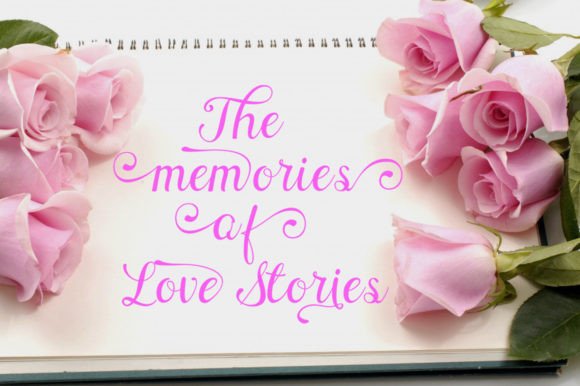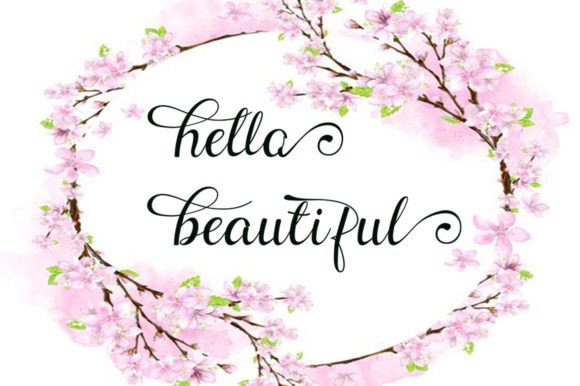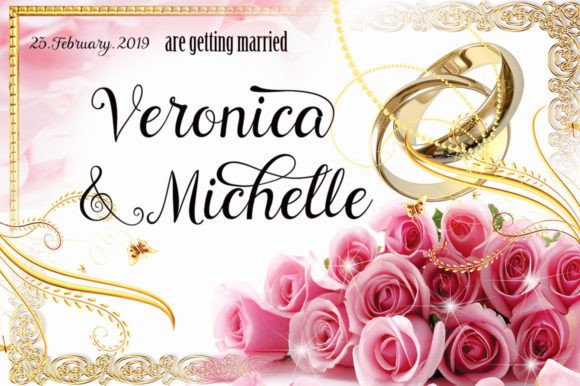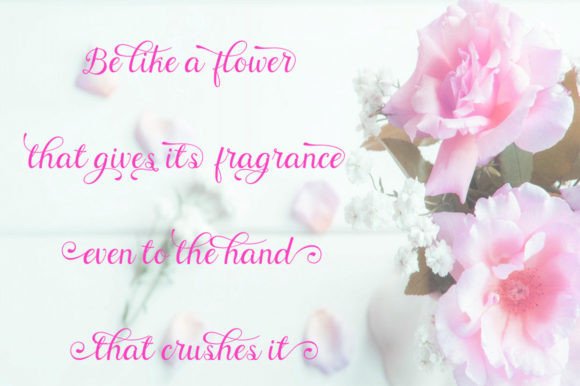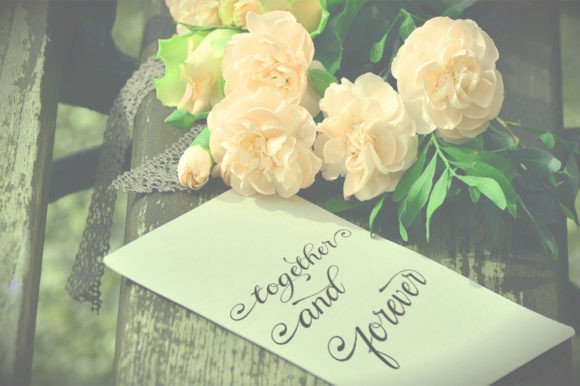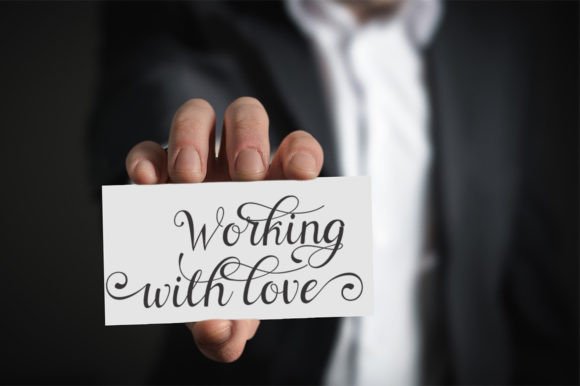
The Legend Font
About The Legend Font
“The Legend” is a captivating and charming calligraphic typeface, featuring characters that gracefully dance along the baseline. Its soft and sweet aesthetic brings a casual yet elegant touch to various design applications, making it a versatile choice for a range of purposes.
Ideal for logos, “The Legend” injects a unique and artistic flair into brand identities. The calligraphic charm of the typeface creates a memorable and distinctive visual representation for businesses or personal projects.
For wedding invitations, “The Legend” imparts an atmosphere of romance and sophistication. The graceful dance of characters adds an elegant touch, making it a perfect choice for capturing the sentiment of special occasions.
Headings benefit from “The Legend’s” casual and elegant appeal, whether in print or digital media. The typeface enhances the visual hierarchy of text, making it more engaging and aesthetically pleasing.
On t-shirts, letterheads, and signage, “The Legend’s” unique calligraphic style stands out, adding a touch of creativity and personality to these items. Its versatility extends to labels, news articles, posters, badges, and various other design elements.
In essence, “The Legend” is a flexible typeface that infuses a soft and sweet character into your design projects. Whether you’re aiming for elegance, romance, or a creative touch, “The Legend’s” calligraphic design brings an expressive quality to logos, invitations, headings, and a variety of other applications. The dynamic interplay of characters dancing along the baseline adds a playful and artistic element, making “The Legend” a delightful choice for a wide array of design purposes.